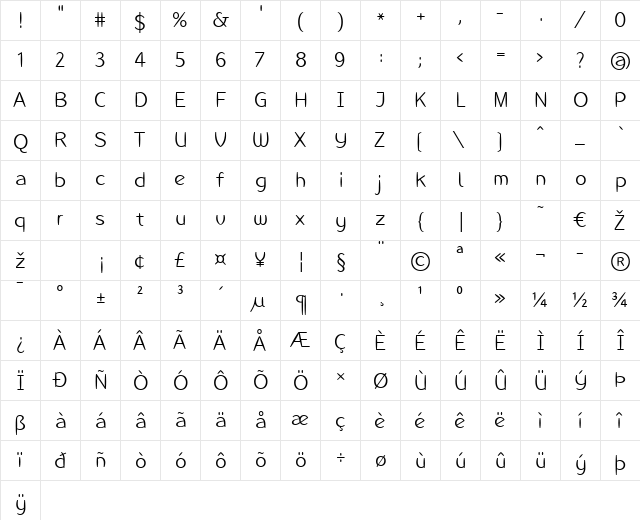
LTInagur Light Regular
| Designer | Hans-Jurgen Ellenberger |
Design Context for LTInagur Light Typeface
LTInagur Light offers clean, dependable letterforms without strong stylistic allegiance, making it a practical choice for designers who need flexibility. Its slender proportions lend an understated elegance to any composition.
Pro Tip: Use LTInagur Light in both headline and body roles to test its range before committing to a single application.